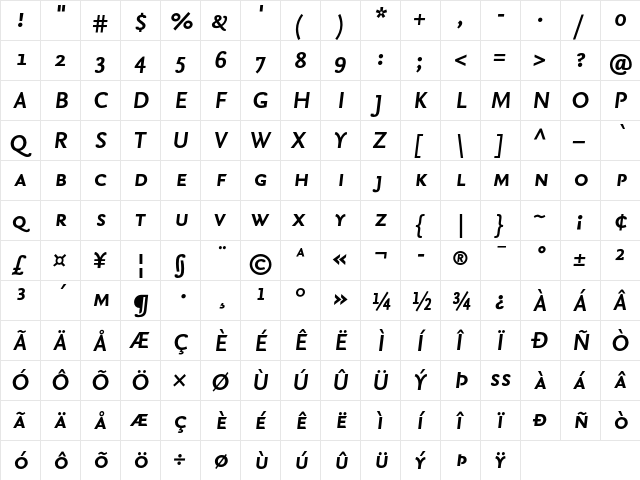
NexusSans-BoldItalicSC Regular Font Preview
NexusSans-BoldItalicSC Regular
NexusSans-BoldItalicSC Regular Font Details
Design Context for NexusSans-BoldItalicSC Typeface
NexusSans-BoldItalicSC is a composed and adaptable typeface that performs quietly and consistently across a wide range of design contexts. The dynamic lean of this cut emphasises speed and emphasis in any layout. Its bold stroke weight gives it real presence on the page.
Pro Tip: Use NexusSans-BoldItalicSC for emphasis, pull quotes, and subheadings where its slanted energy can add rhythm to the layout.